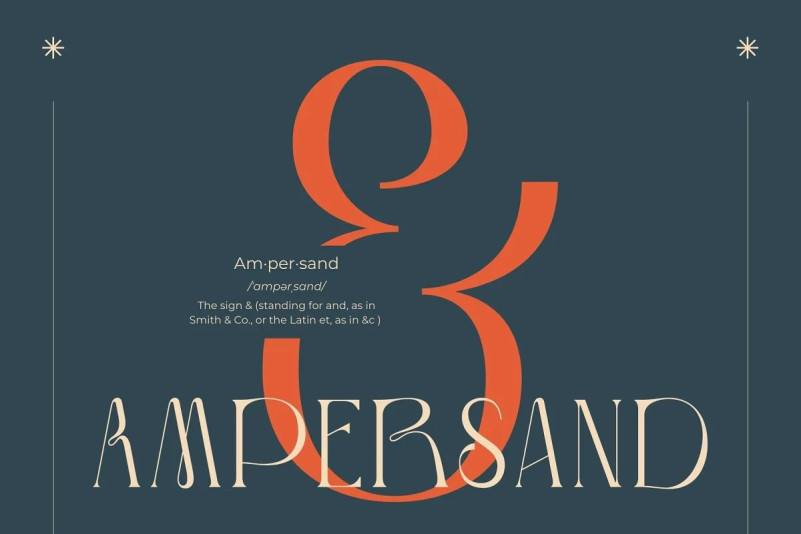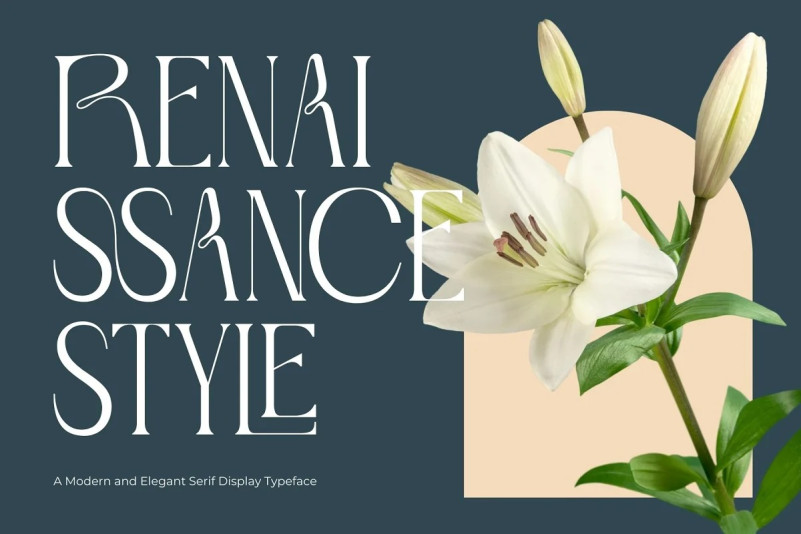
Metro Photograph Font
Metro Photograph Serif Font, Inspired by Renaissance Design Era. Moerva offers beautiful typographic harmony for a diversity of design projects, including logos & branding, social media posts, advertisements & product designs.